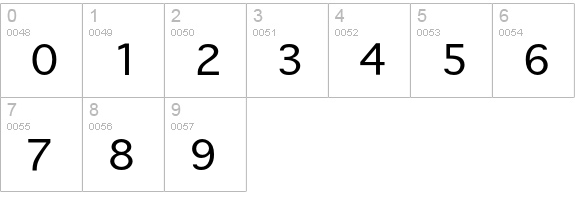
MedTech Font Details
Introducing MedTech Font, a cutting-edge typeface designed specifically for the medical and technology industries. With its sleek and modern aesthetic, MedTech Font exudes professionalism and innovation, making it the perfect choice for any project related to healthcare, biotechnology, or digital advancements. This versatile font is designed to convey a sense of precision and expertise, making it ideal for branding, marketing materials, presentations, and more. The best part? MedTech Font is available for free download at FontsMarket.com, allowing you to easily access this premium font without breaking the bank. Don't miss out on the opportunity to elevate your designs with the sophisticated charm of MedTech Font. Download it today and take your projects to the next level!